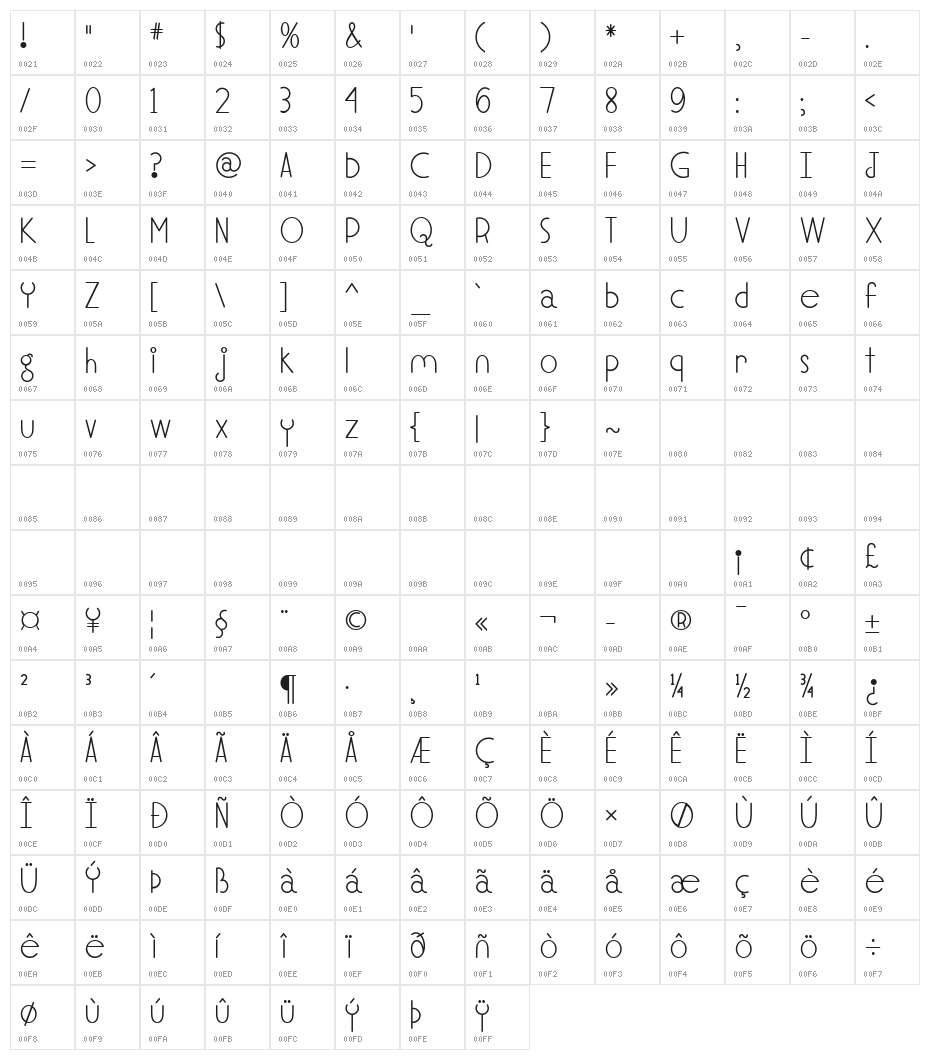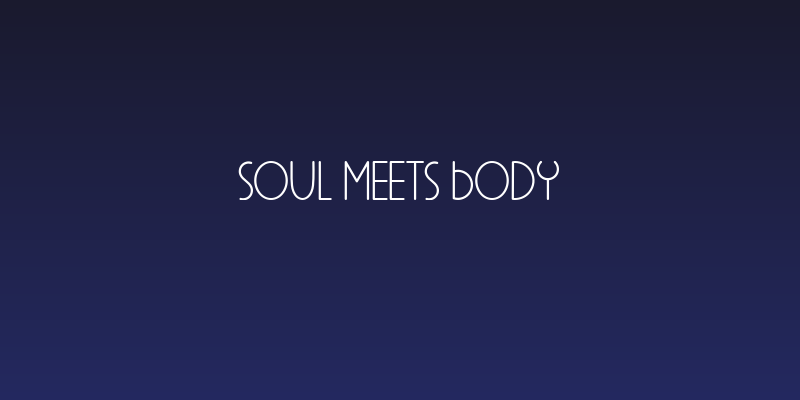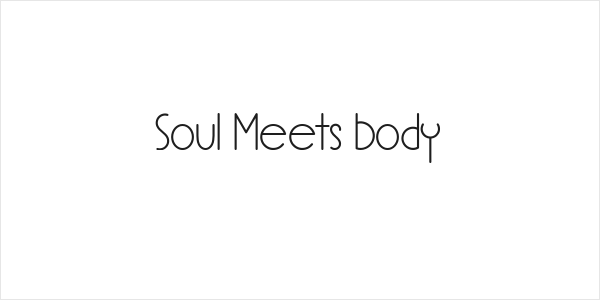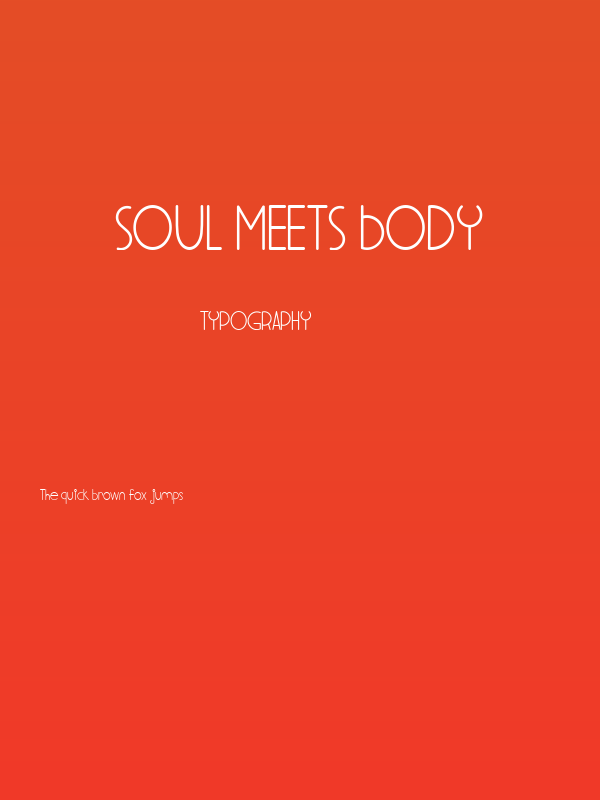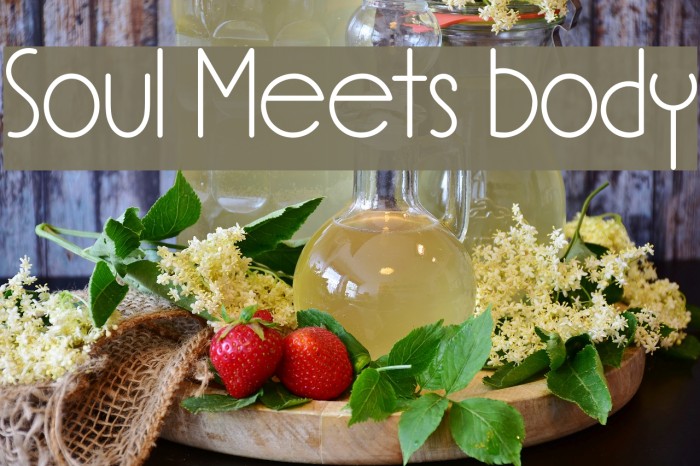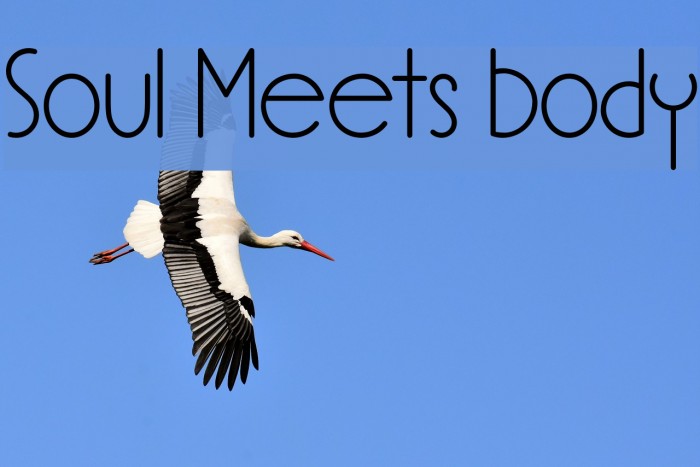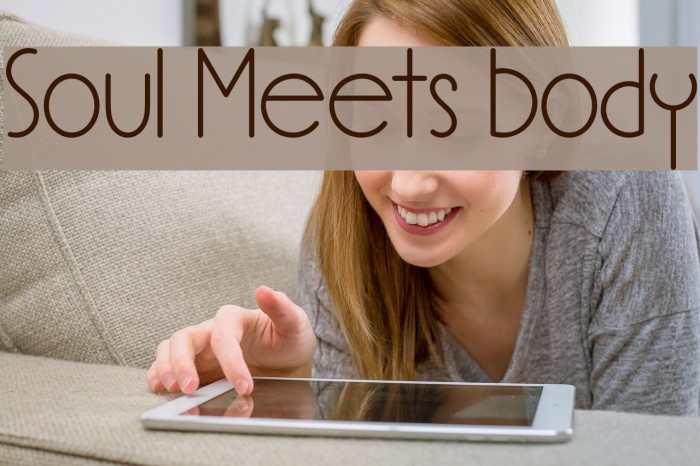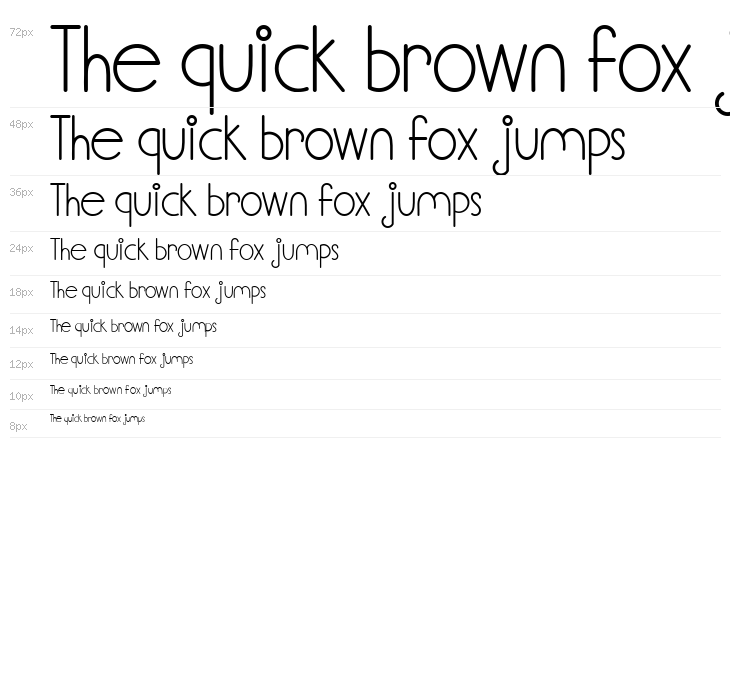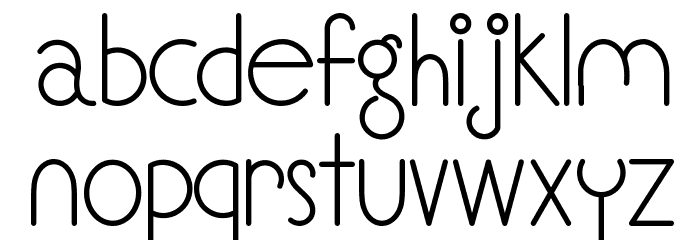
Soul Meets Body Font
Soul Meets Body Description
This font features a modern and playful design with a geometric structure. The characters are rounded and have a consistent stroke width, giving it a clean and minimalistic appearance. The uppercase letters are slightly taller than the lowercase, and the font maintains a uniform height across all characters. The numbers and special characters are designed to match the overall style, ensuring a cohesive look. The font's simplicity and clarity make it versatile for various design applications.
| Use Case | Headlines, Logos, Digital media |
| Proposed Projects | Ideal for branding, advertising, and digital media projects where a modern and clean aesthetic is desired. |